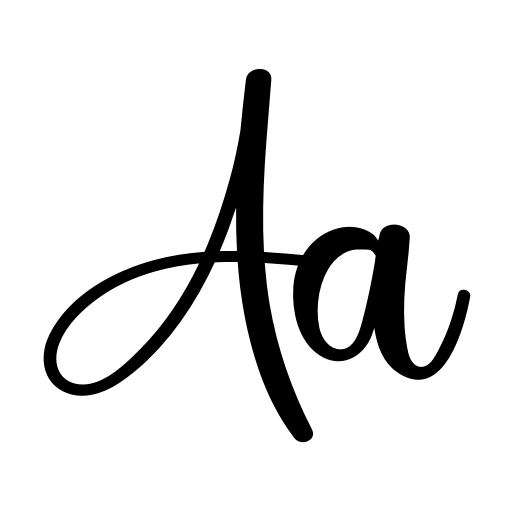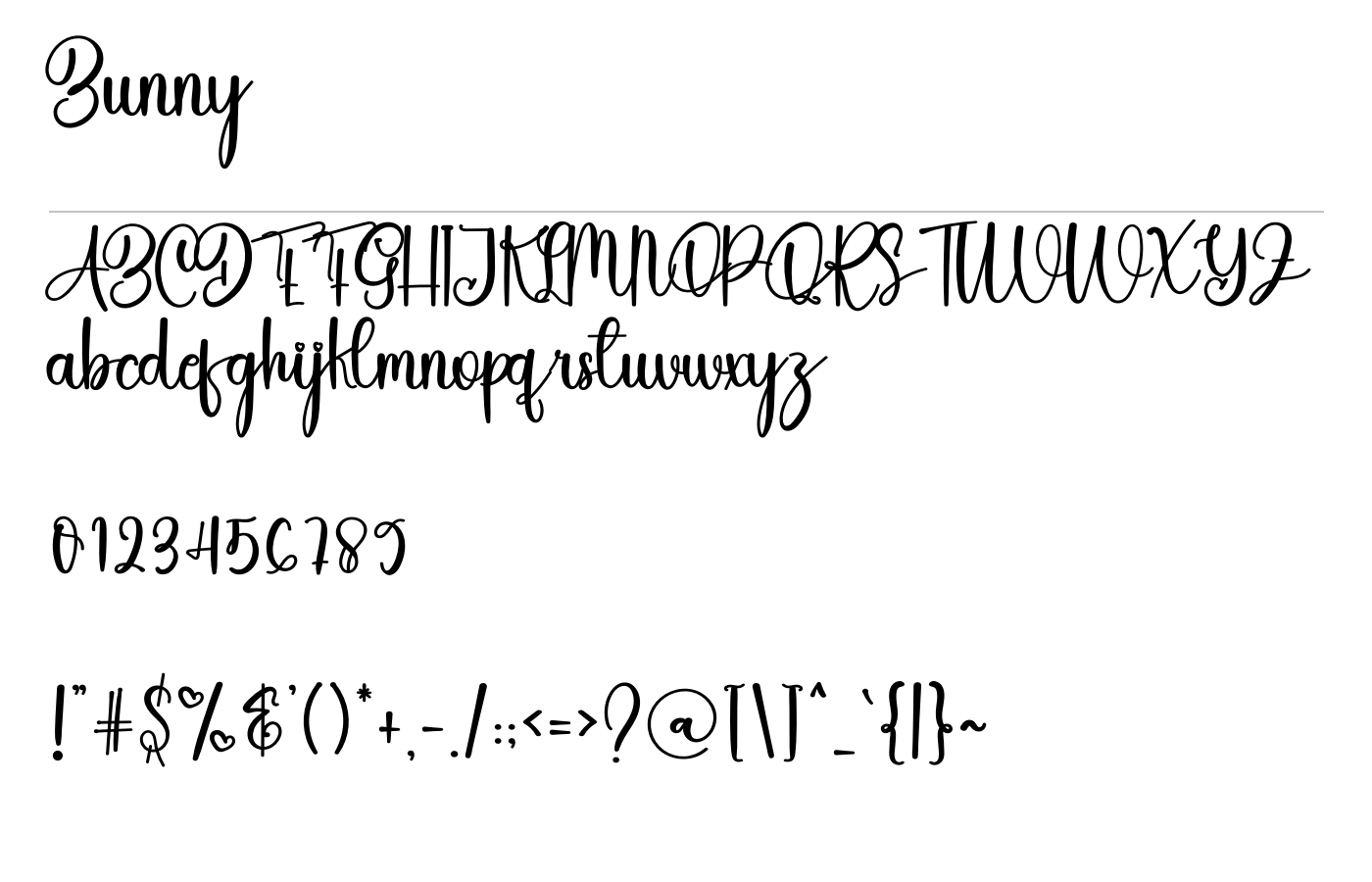
Bunny Font is a playful and elegant script typeface characterized by its flowing, hand-drawn style with varied stroke widths and whimsical letterforms. Its tall, narrow letters and smooth curves make it ideal for creative branding, invitations, and headlines where a friendly yet sophisticated look is desired. This font adds a personal, charming touch to designs needing a unique and inviting aesthetic.
Bunny Font